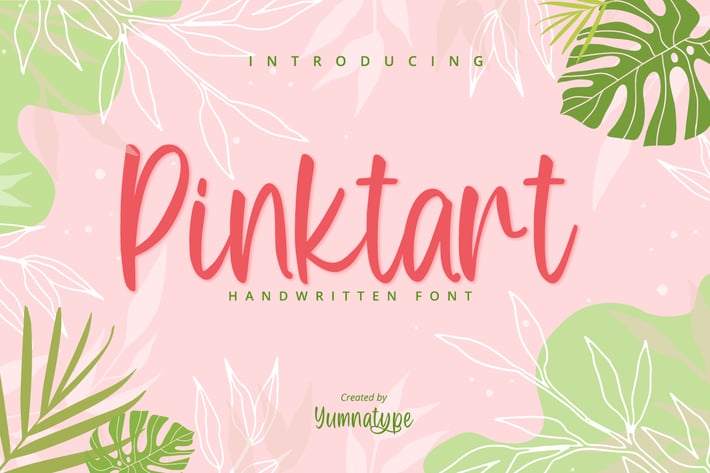
Pinkart-Lovey Handwritten Font
Pinktart is a lovely handwritten font with a natural and unique design will make your project more beautiful. The font is suitable for your branding project, printing, logos dan wedding.
- Beautiful Ligatures
- Alternate
- Numeral and Punctuation